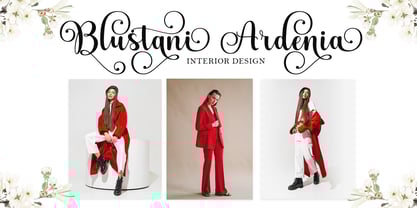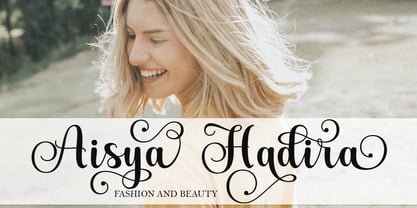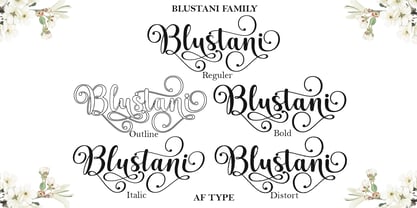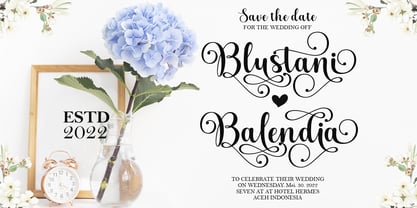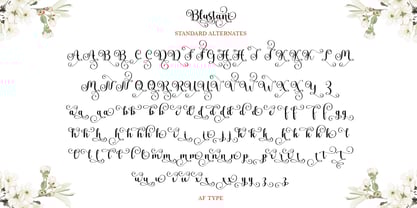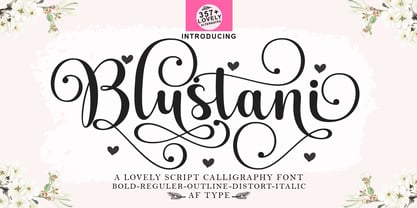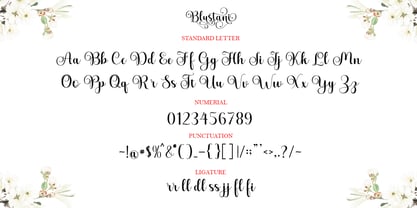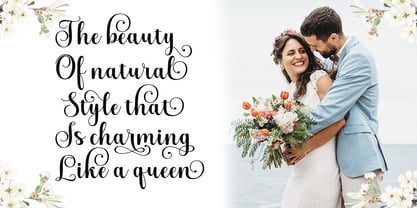
Blustani
by AF Type
The Blustani Font Family was designed by Al Qausar Firdaus and published by AF Type. Blustani contains 5 styles and family package options.
This font is a smooth, elegant, and flowing handwritten font. It has a beautiful and unique blend of ligatures on each letter, so the author arranged them with a little swirling embedding, resulting in a modern font that is ready to make a statement by adding an elegant and unique style to your next design project. Add to it your most creative ideas and watch this font bring them to life!